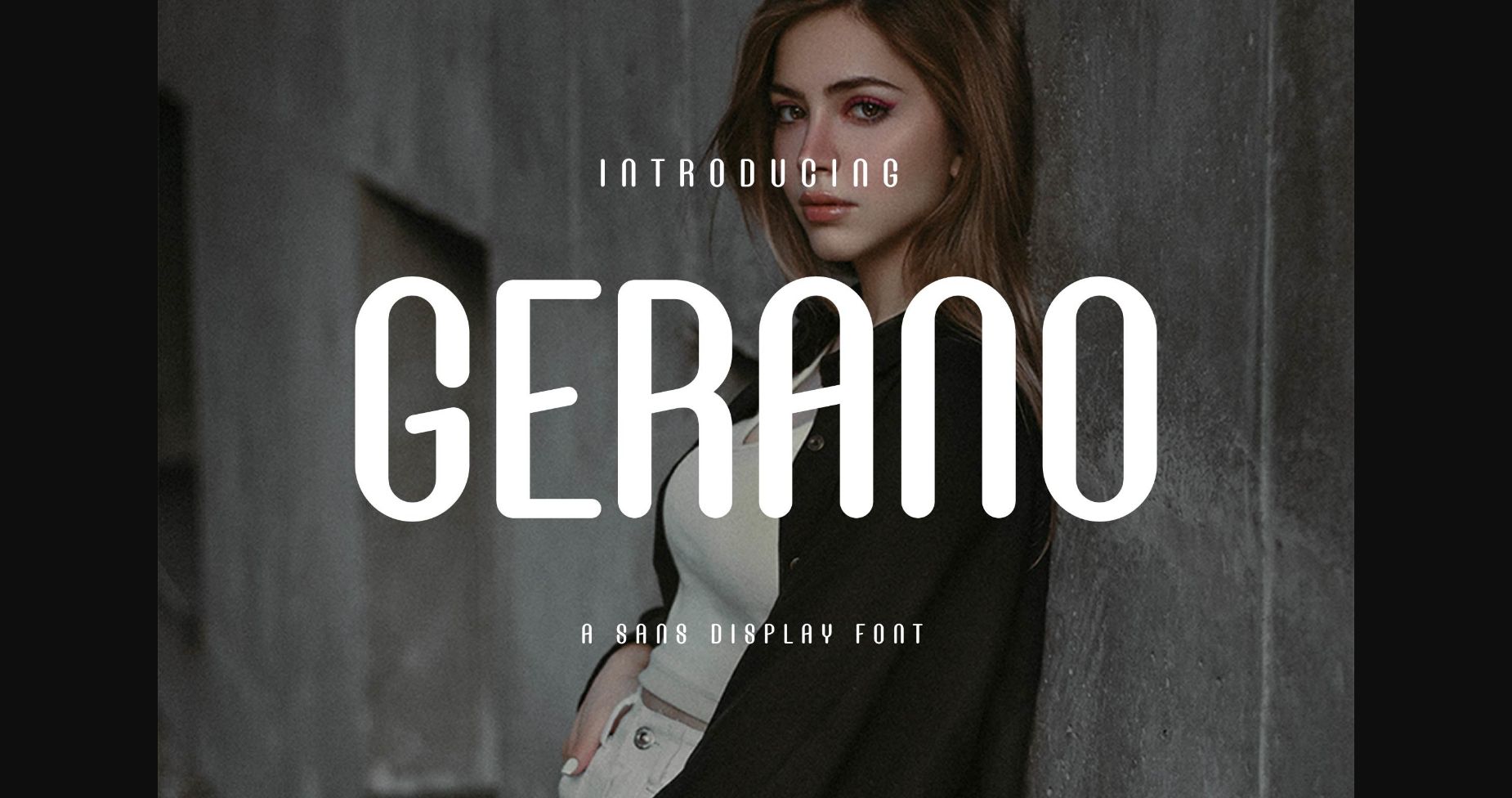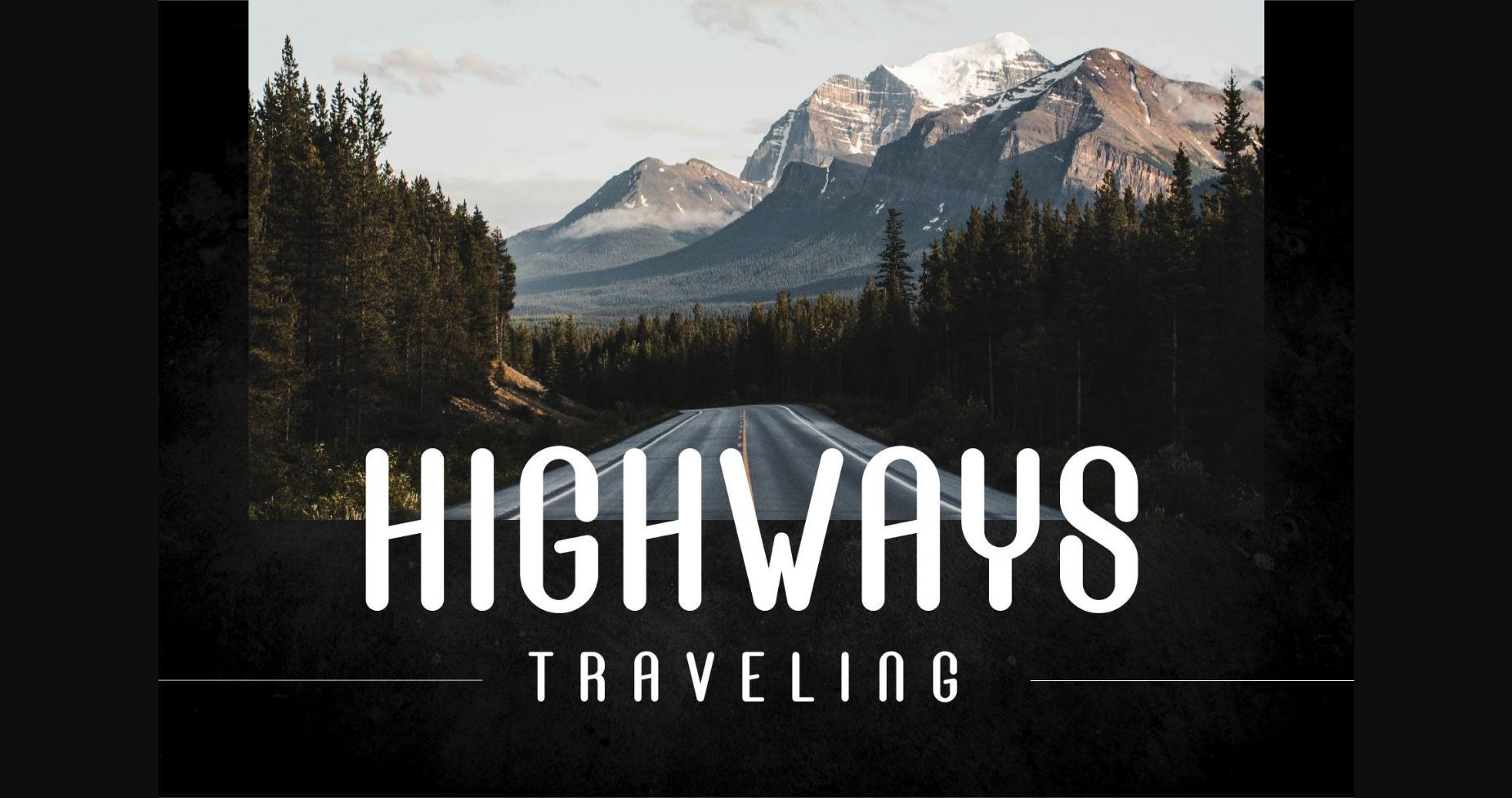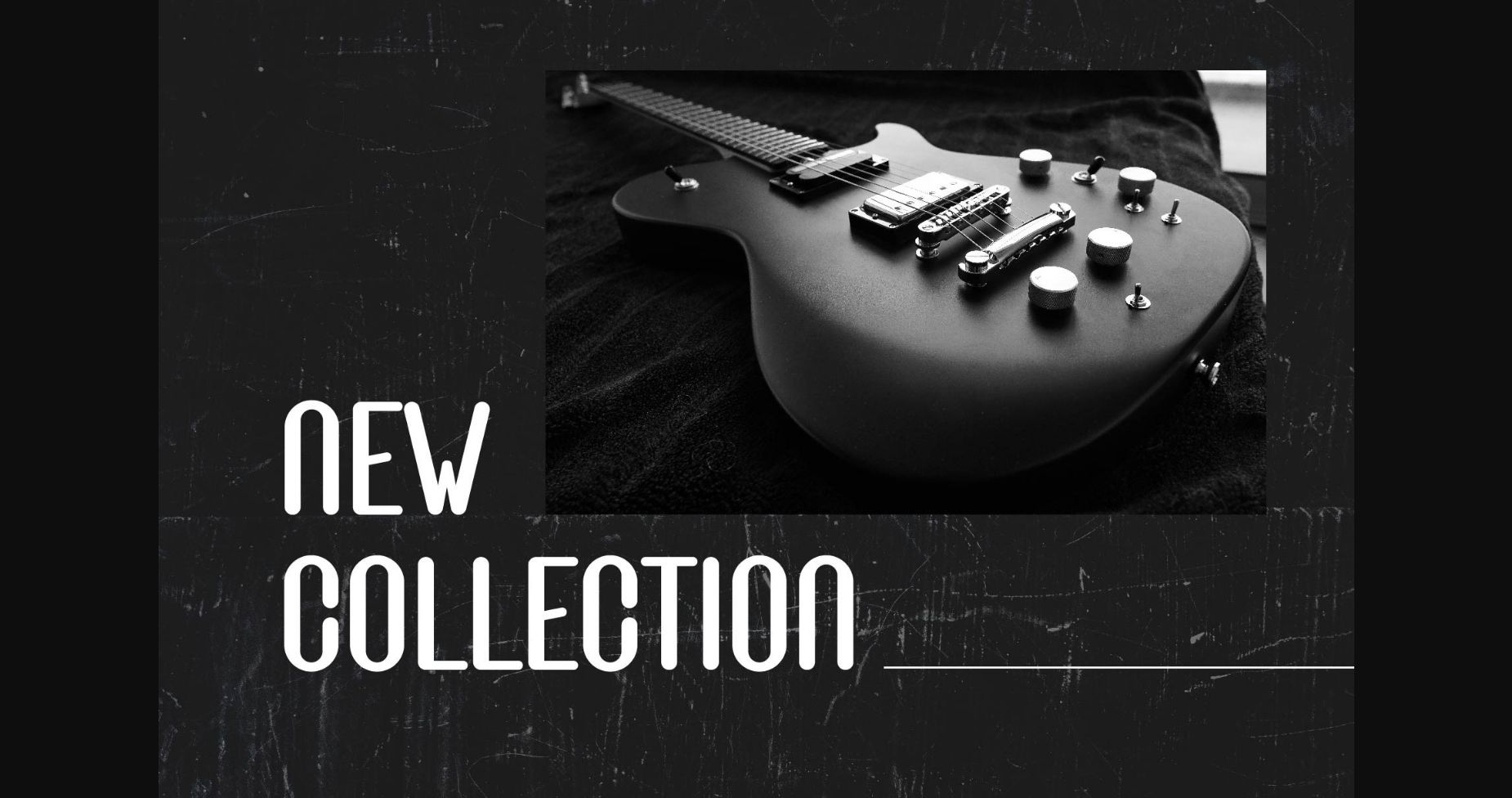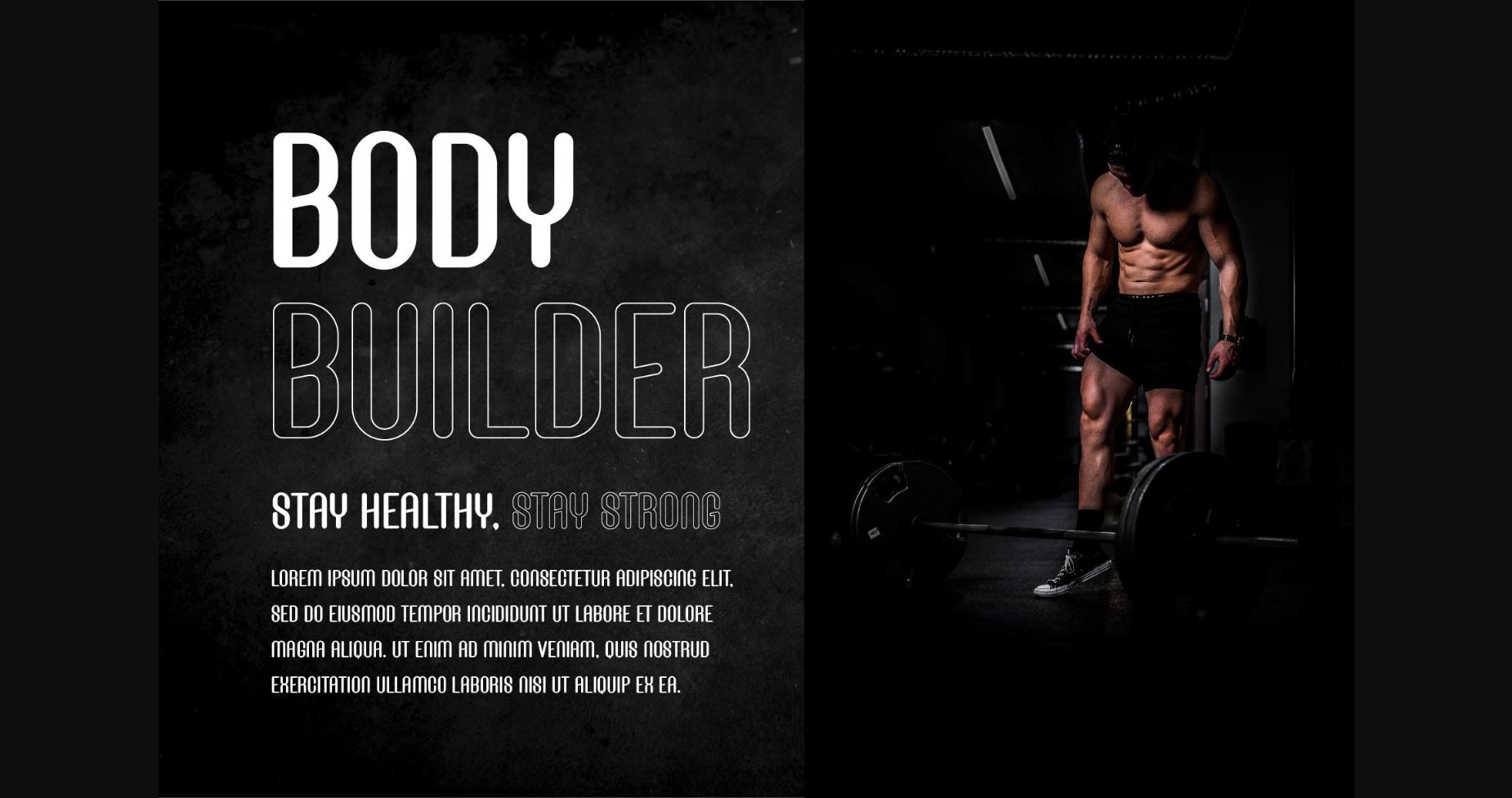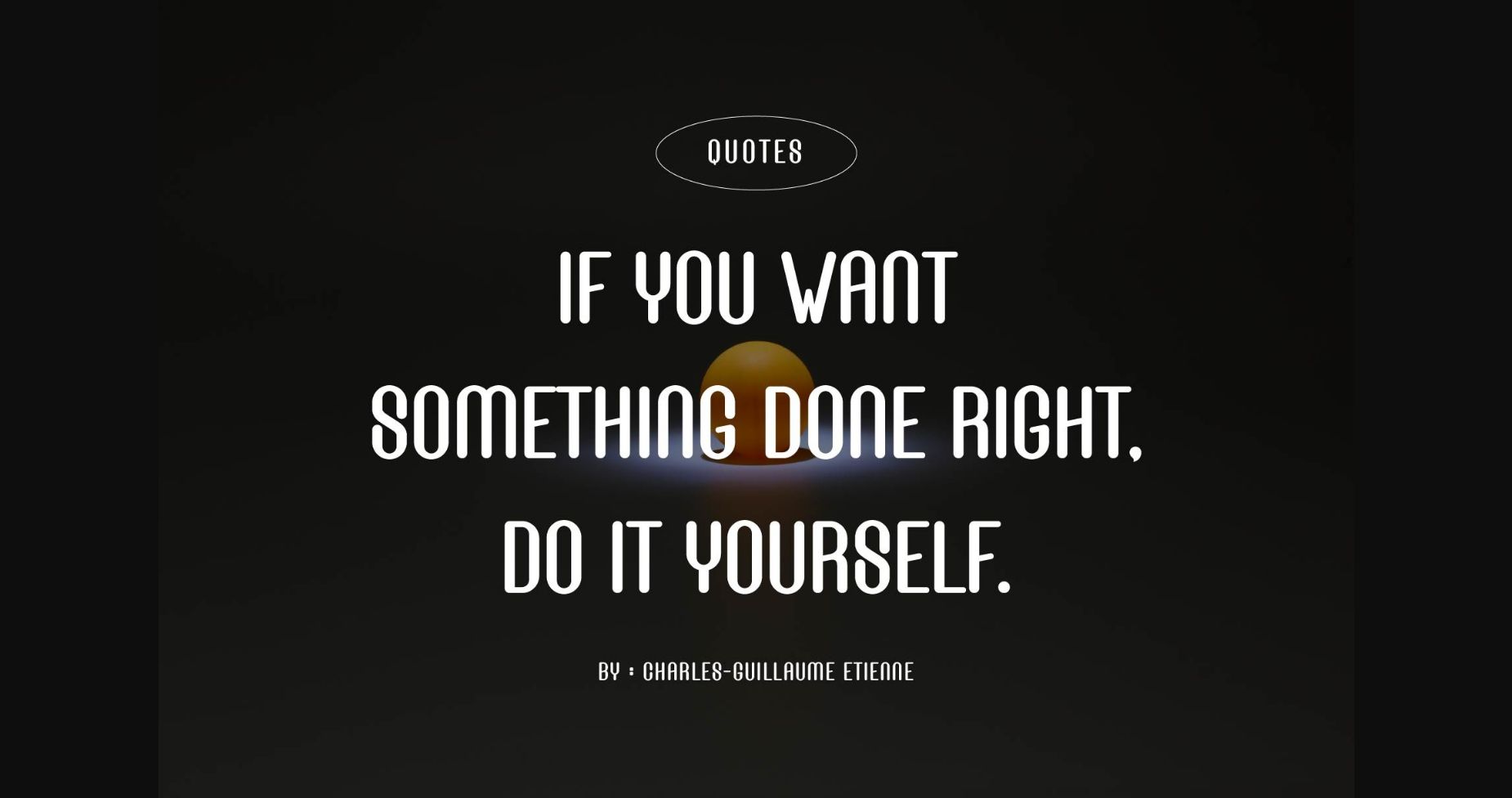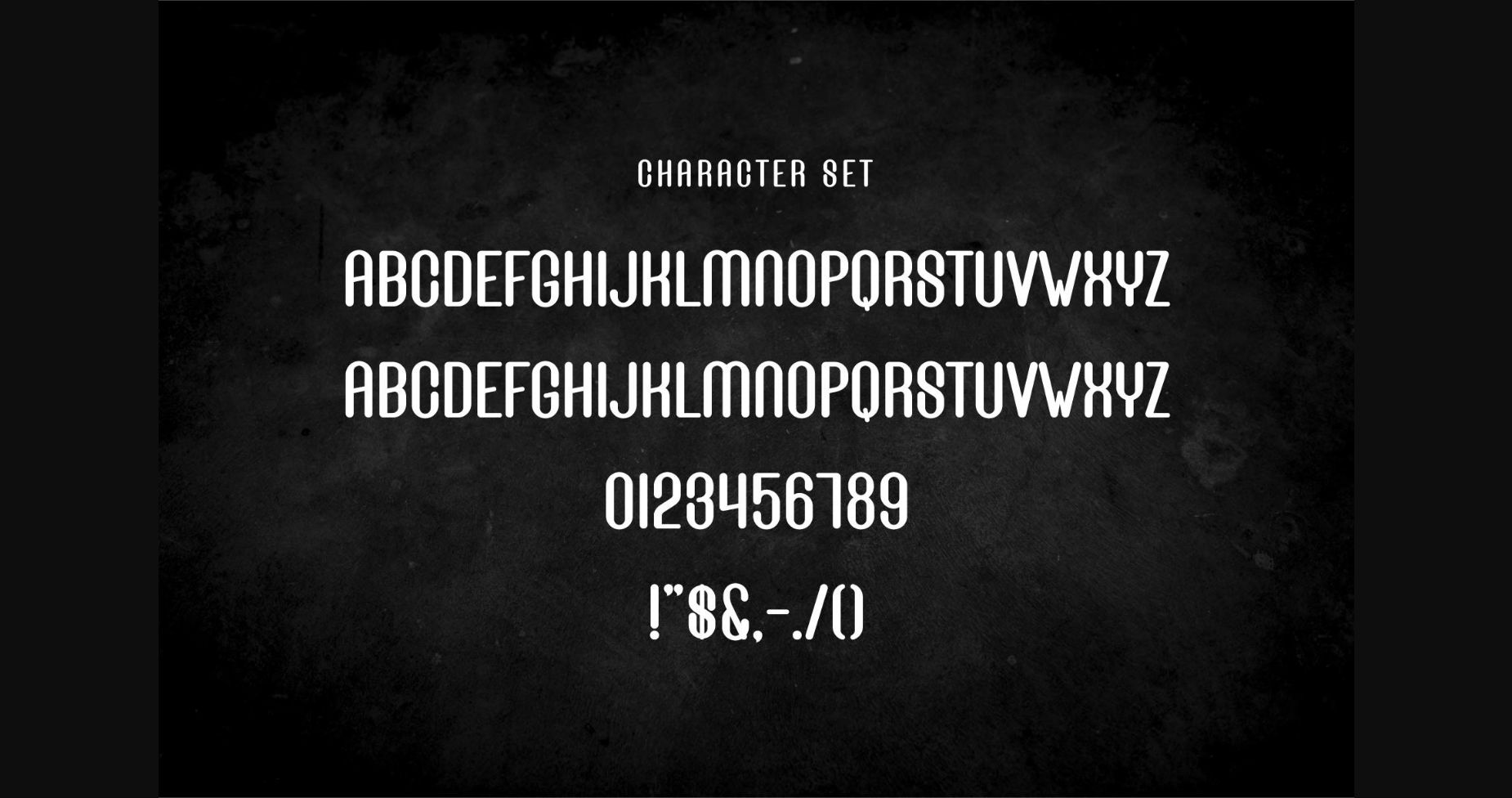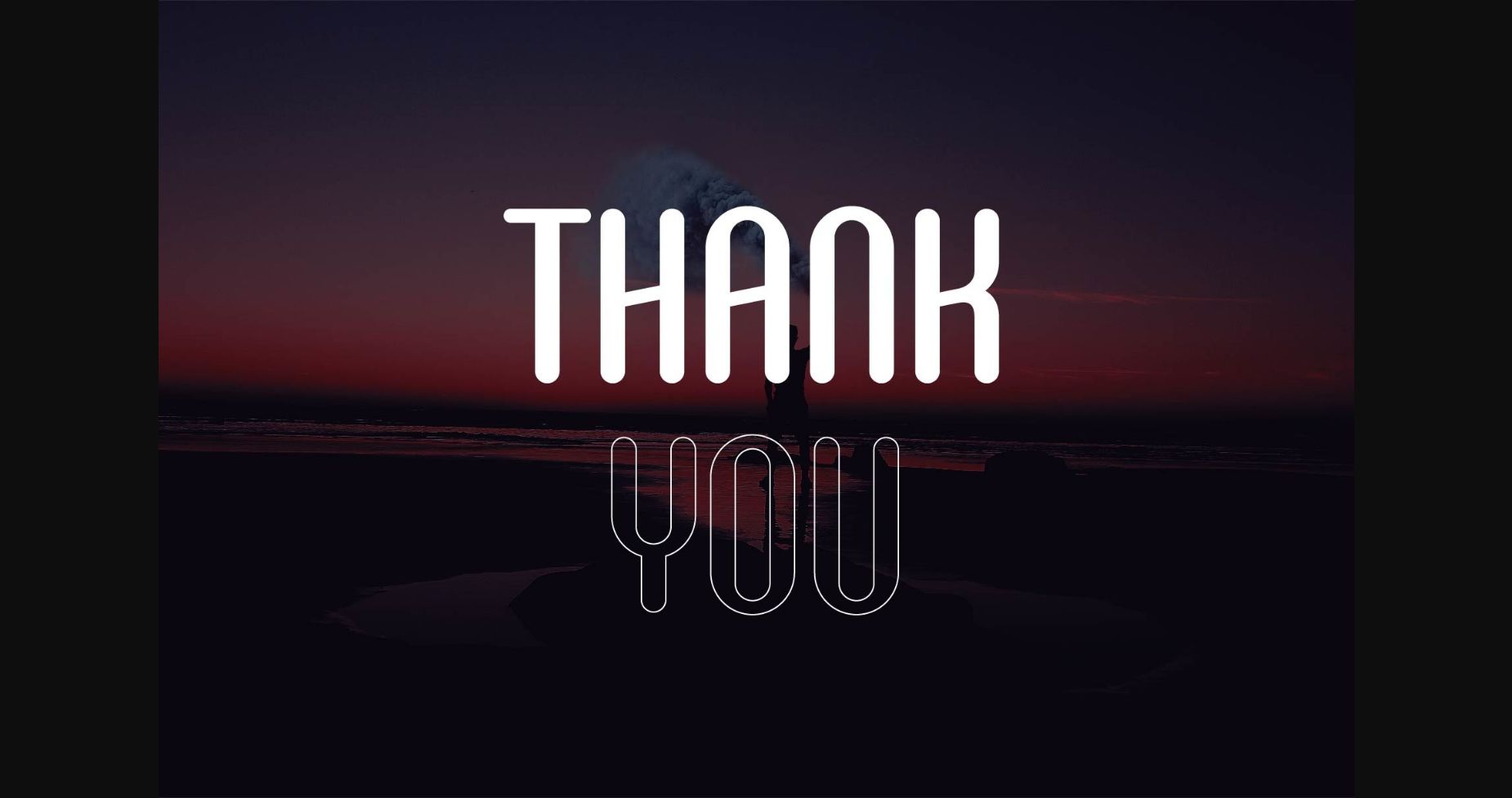
About Gerano Font
Gerano Sans is a minimalist font typeface that is perfect for designing templates, brochures, videos, advertising branding, logos, invitation, layout design, elegant crafting, beauty design and more. Its clean and refined style can elevate any project and add an elegant touch to any design. This font is PUA encoded which means you can access all glyphs and swashes effortlessly!